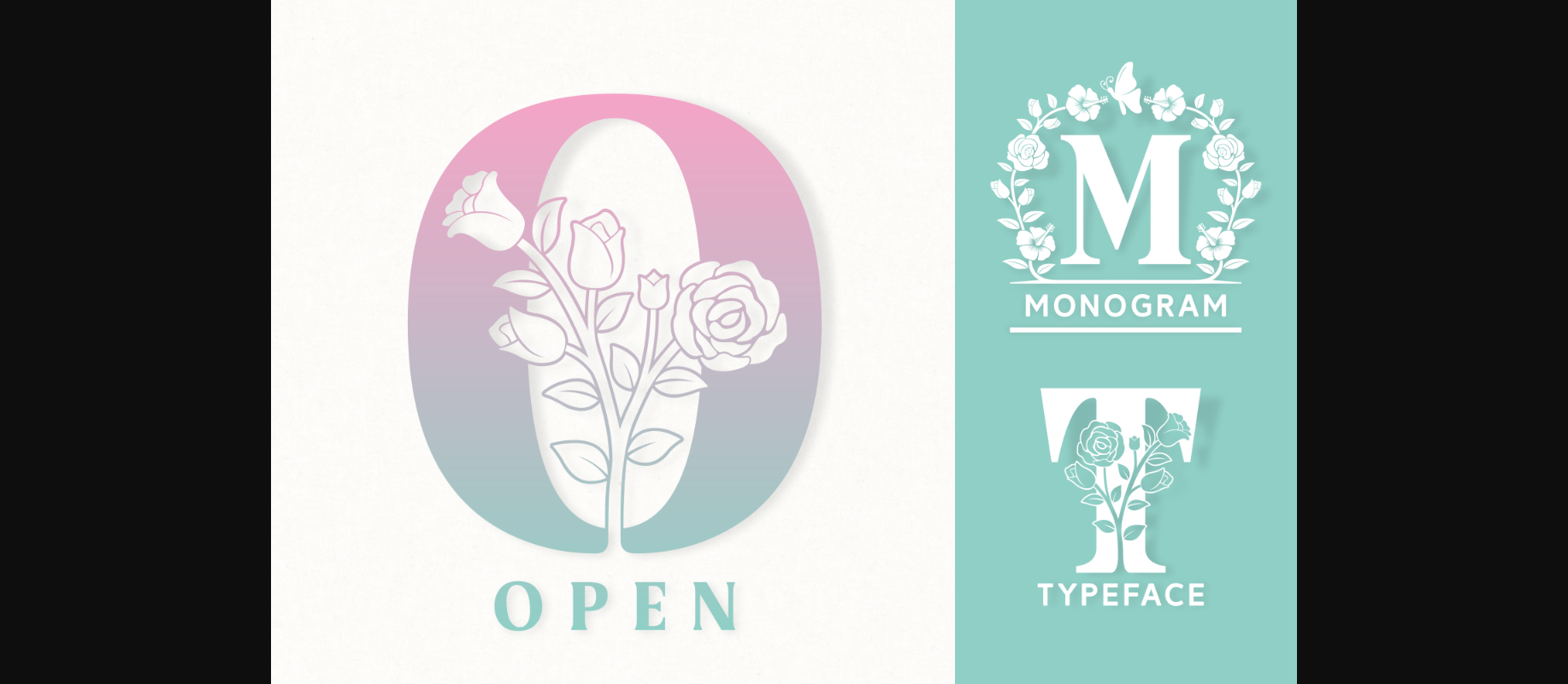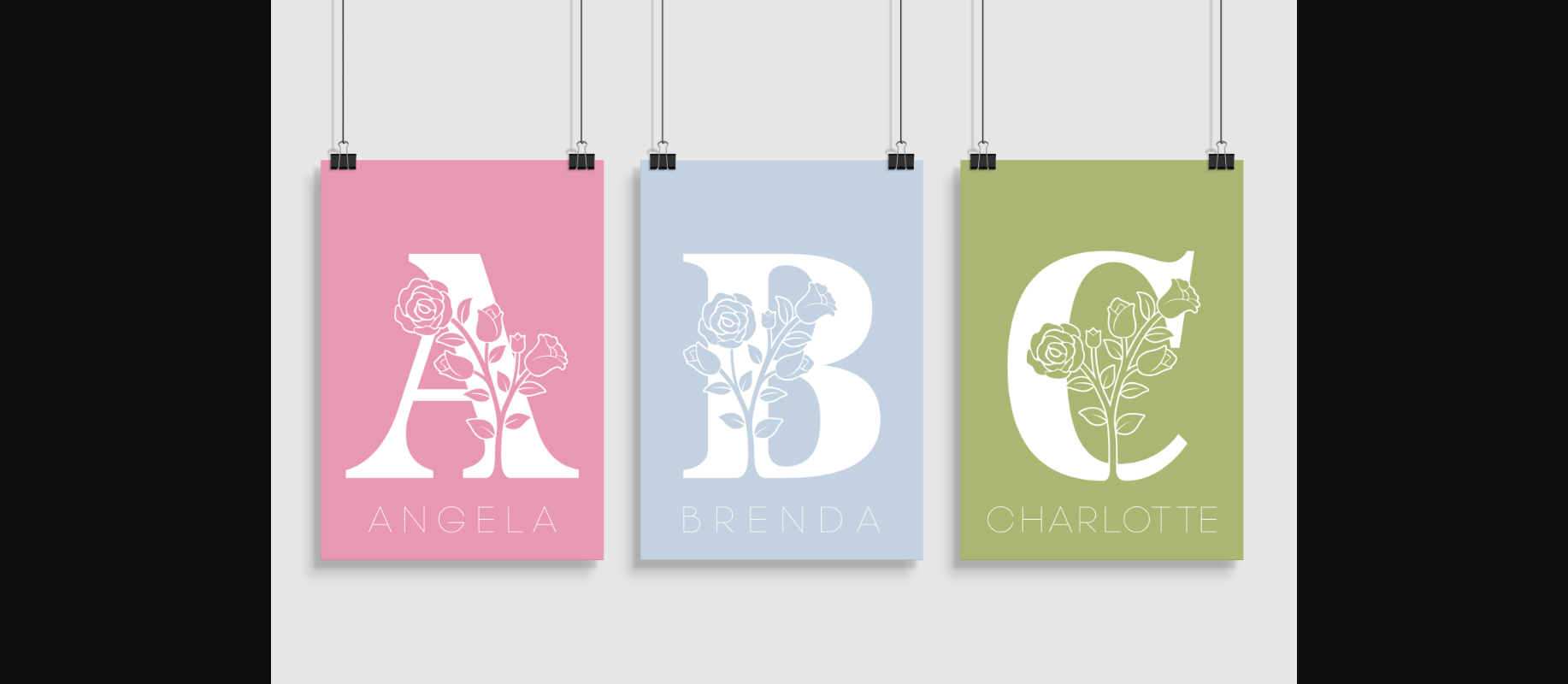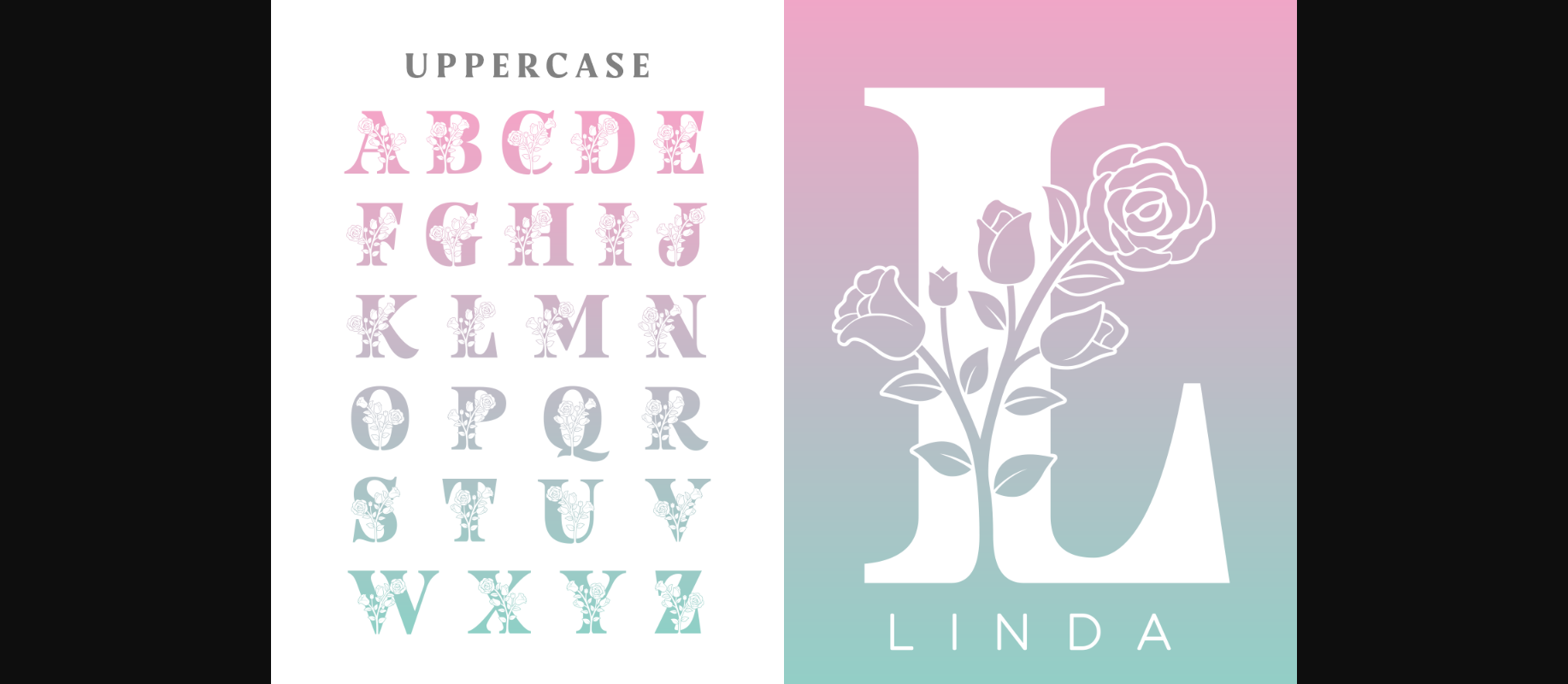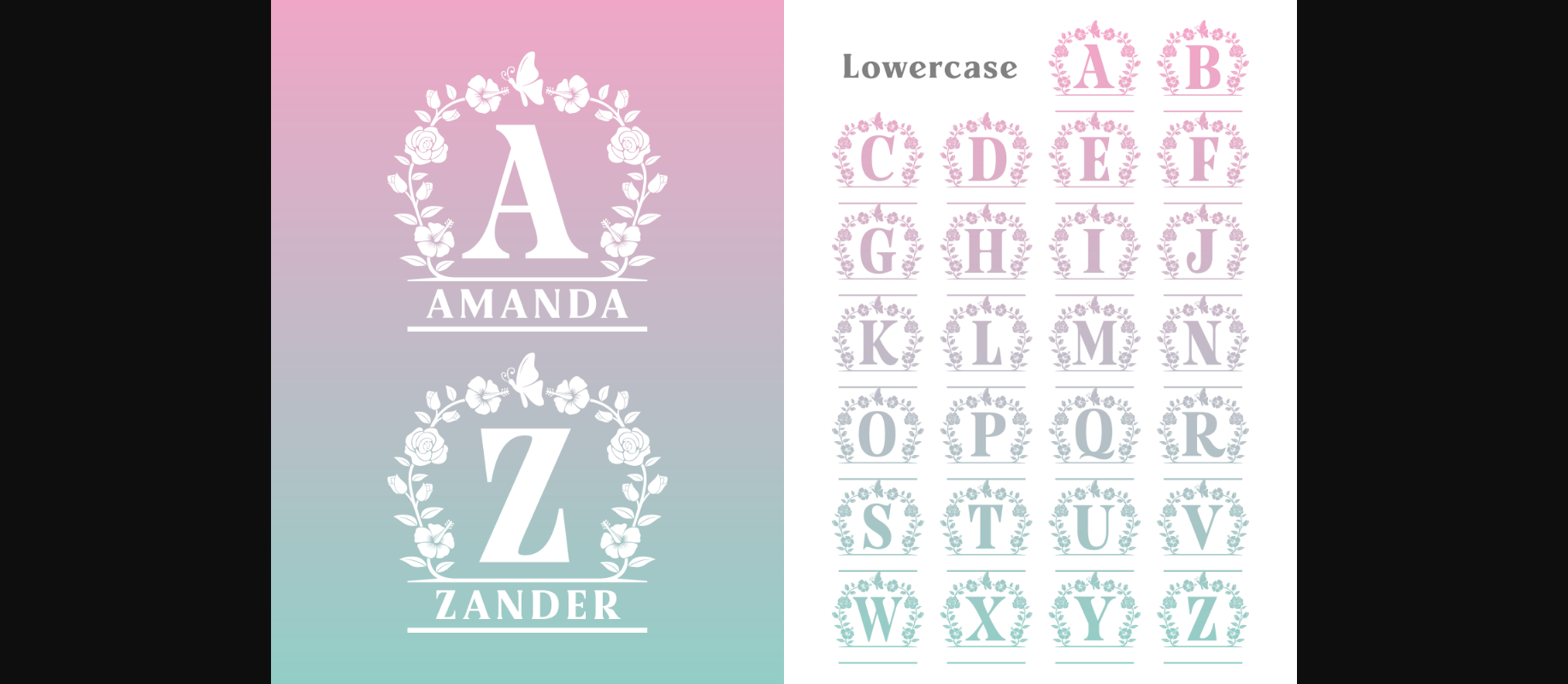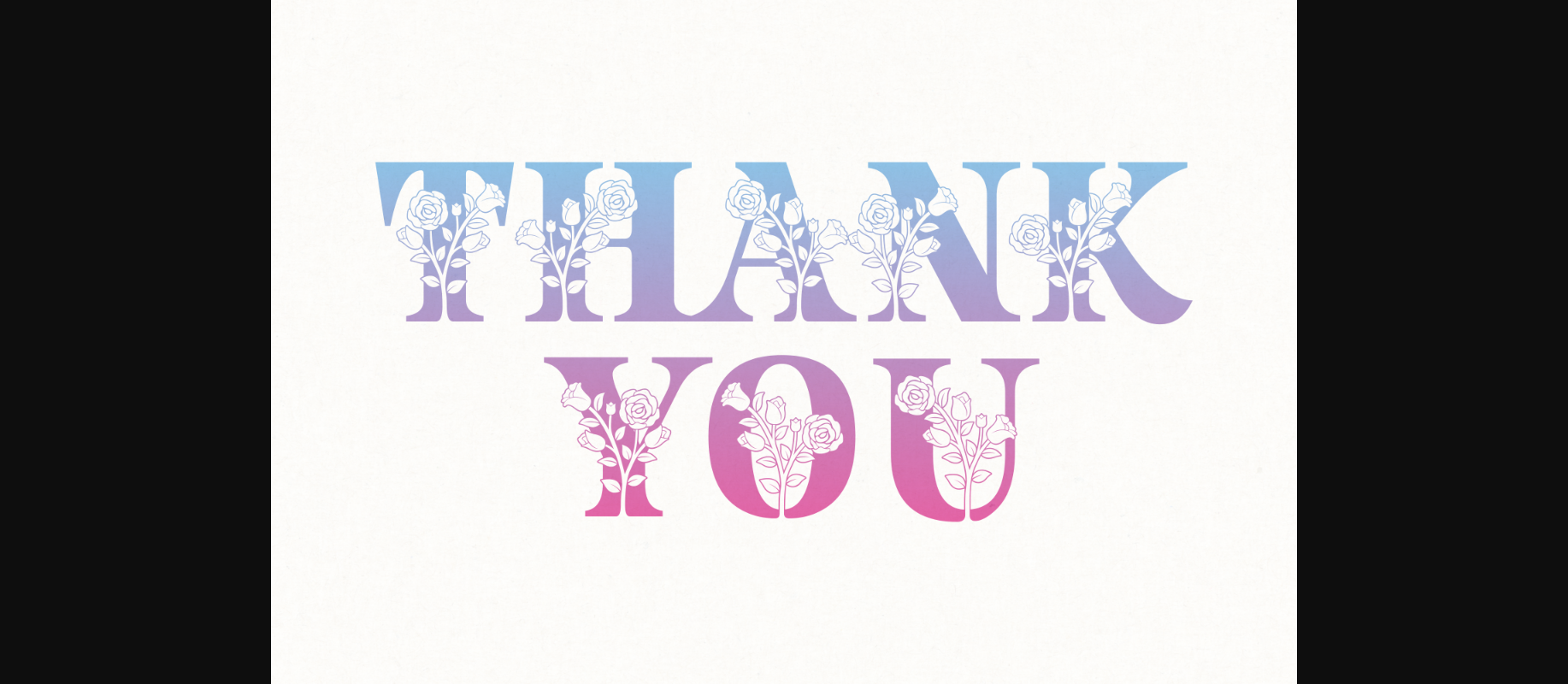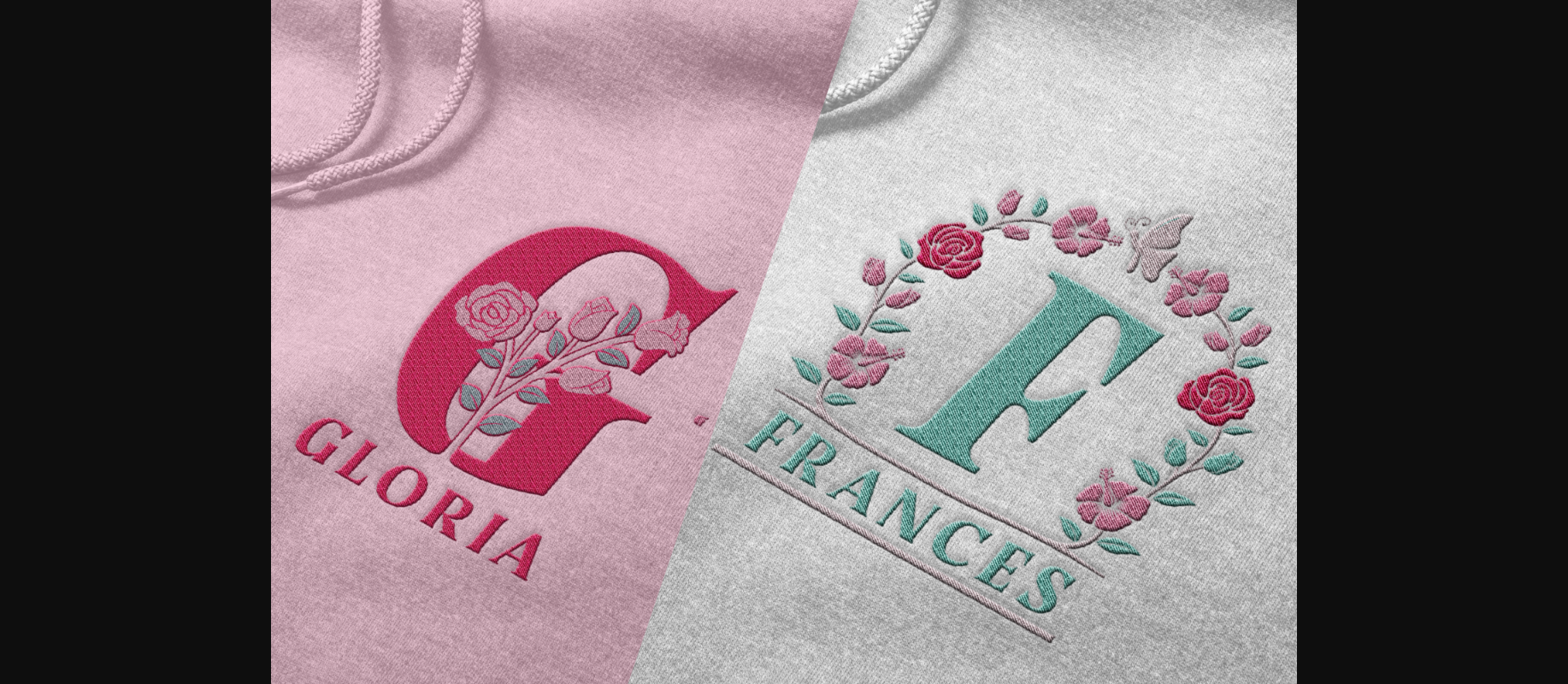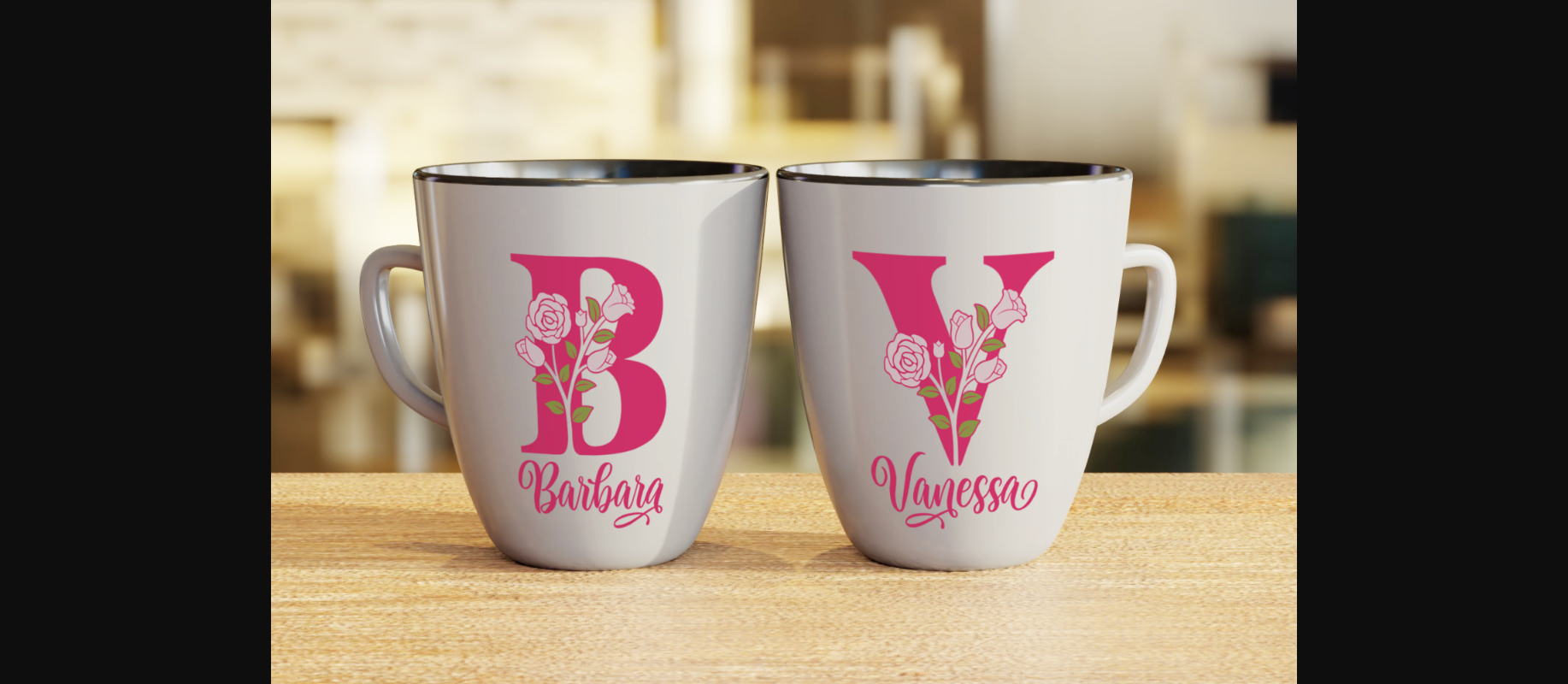
Open is a lovely, elegant and unique decorative font. It looks stunning on wedding invitations, thank you cards, quotes, greeting cards, logos, business cards and every other design which needs a customized touch.